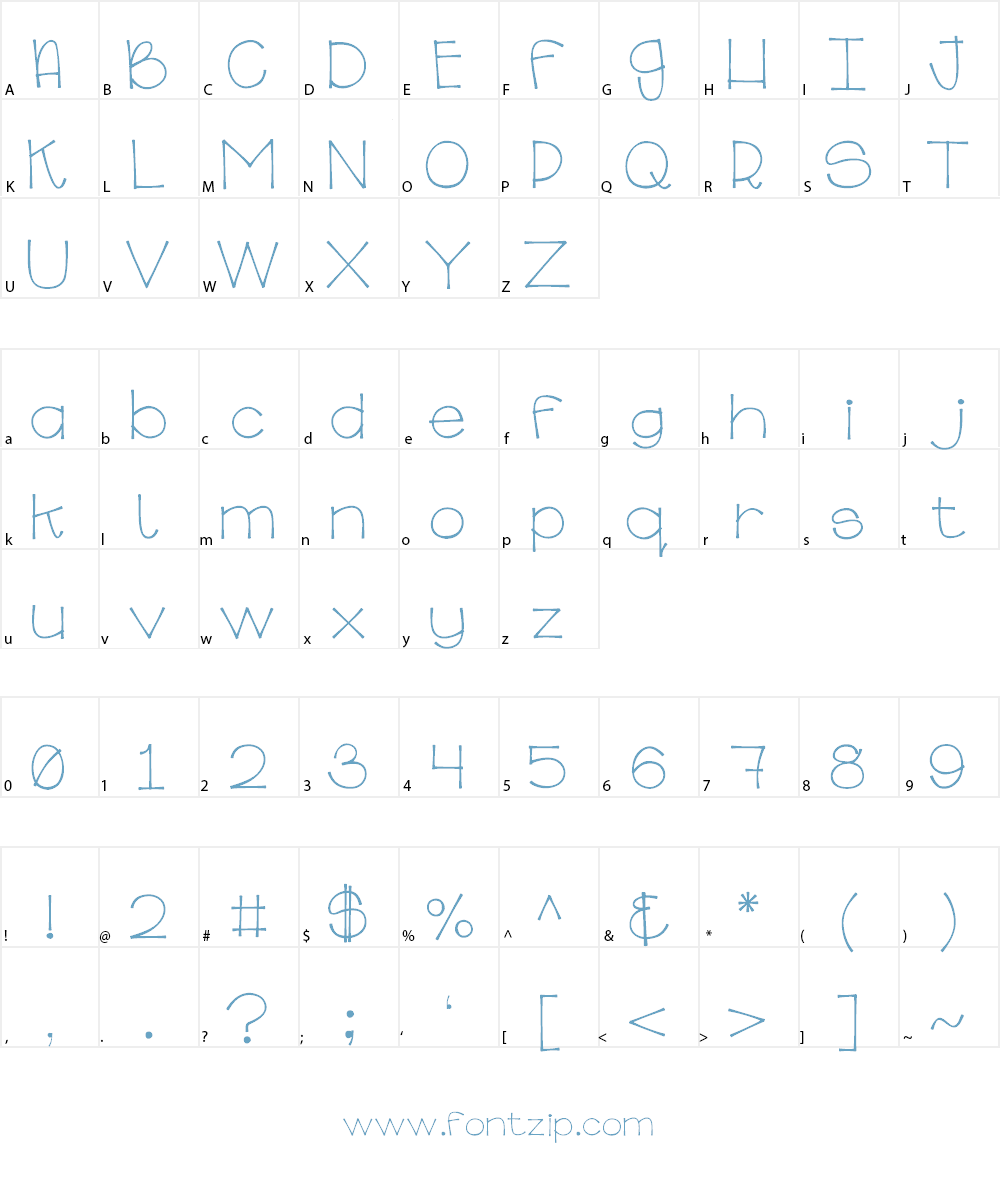
A fun fanciful font perfect for invitations, t-shirts, and much more. Free font is for personal use only, or you can use commercially for a $10 donation.